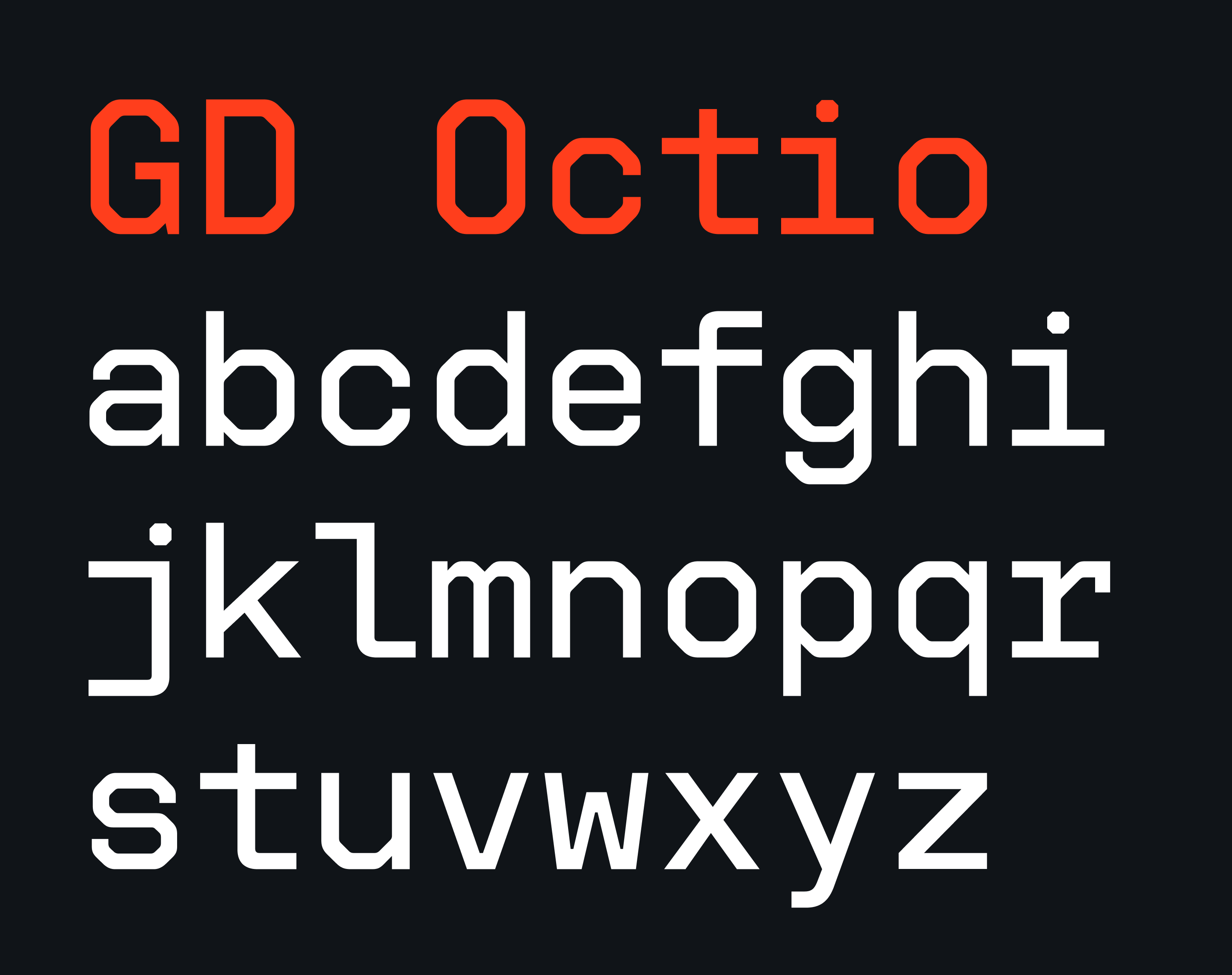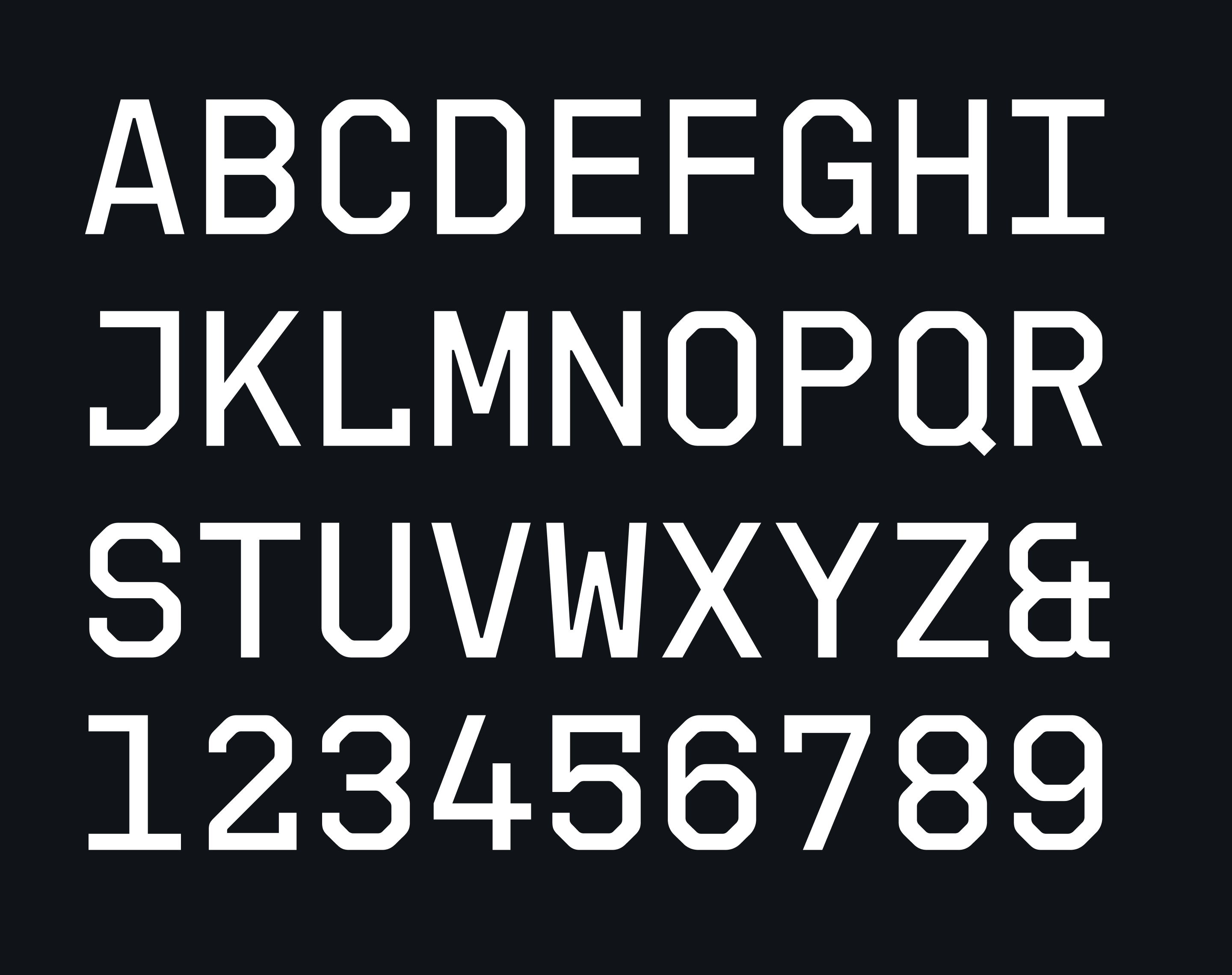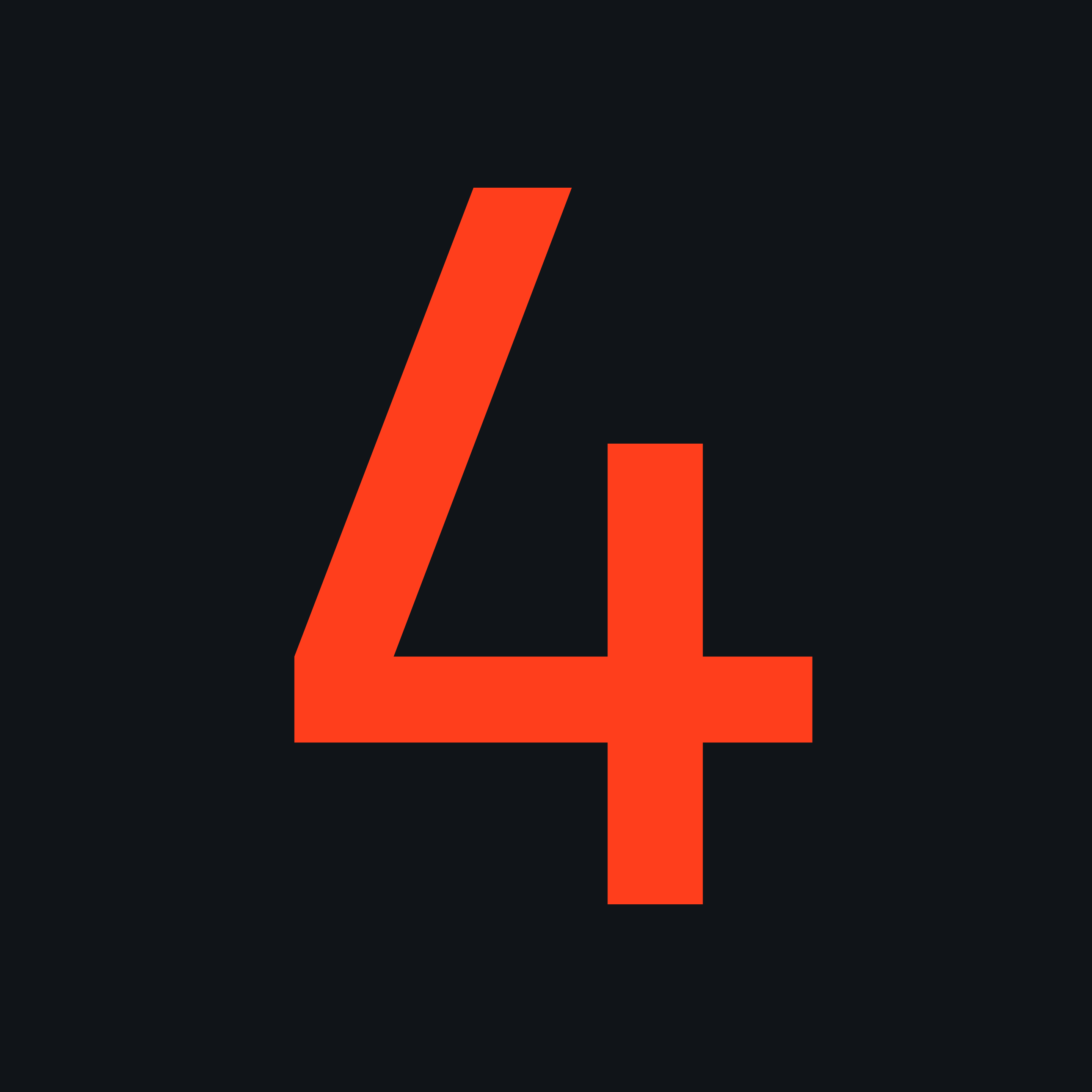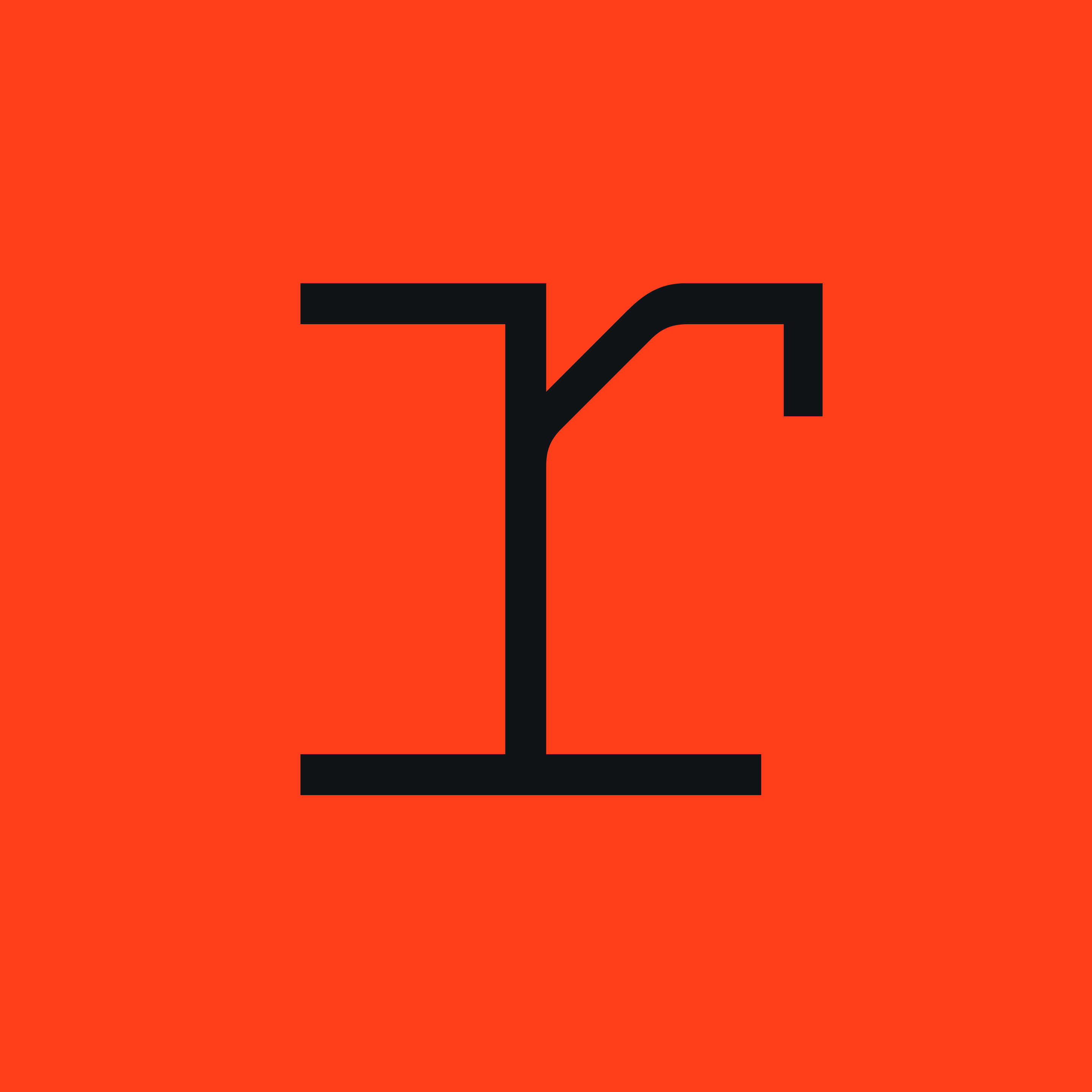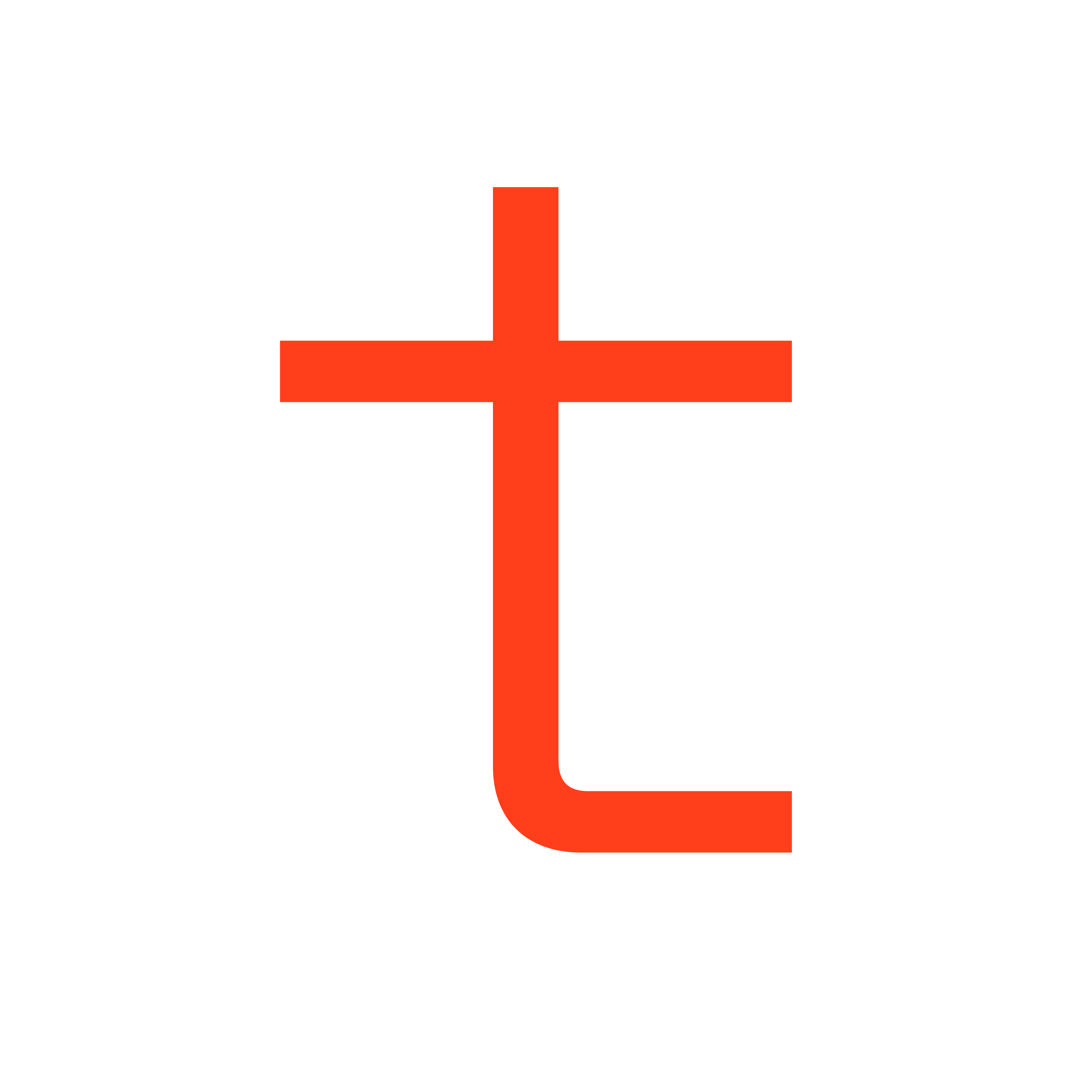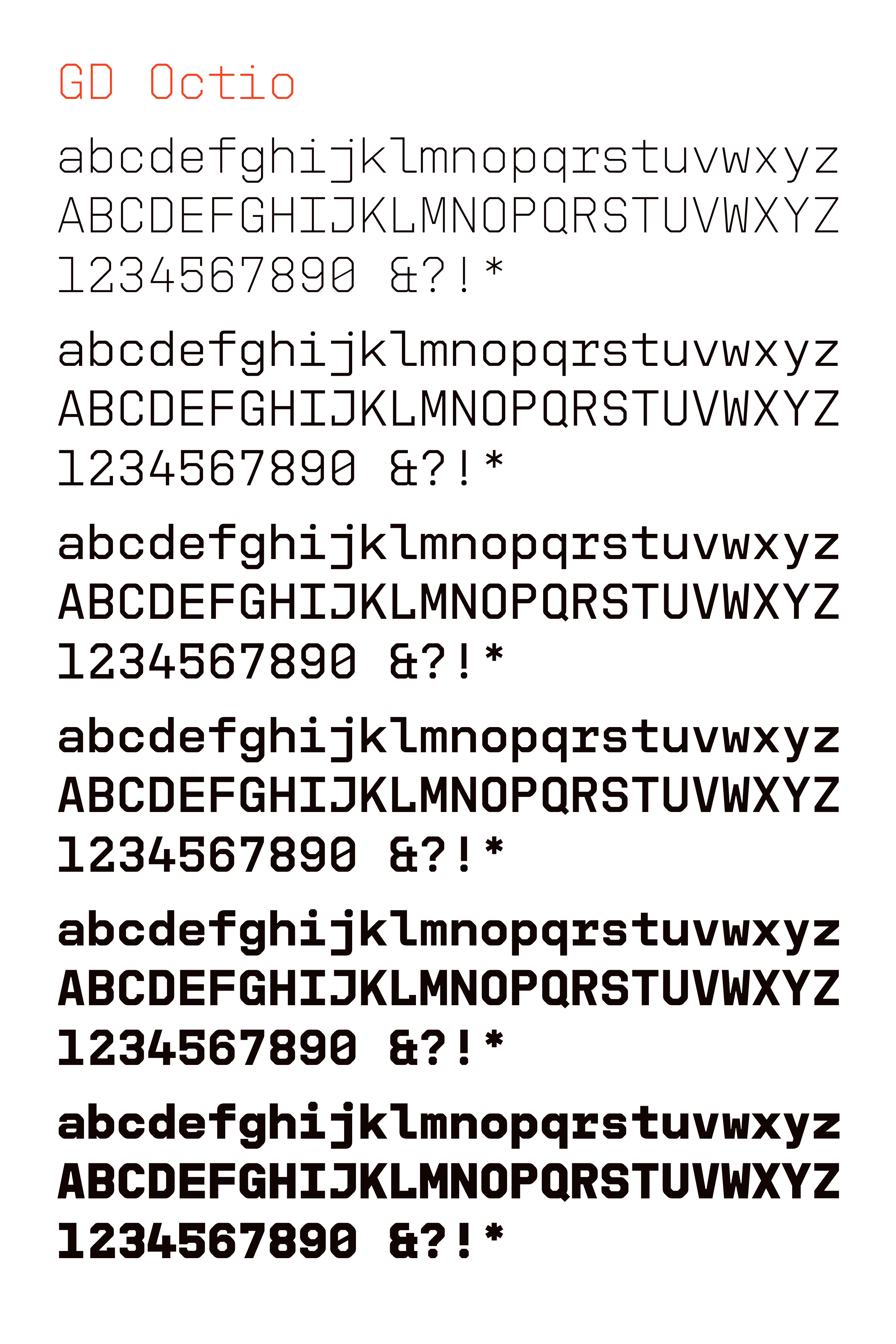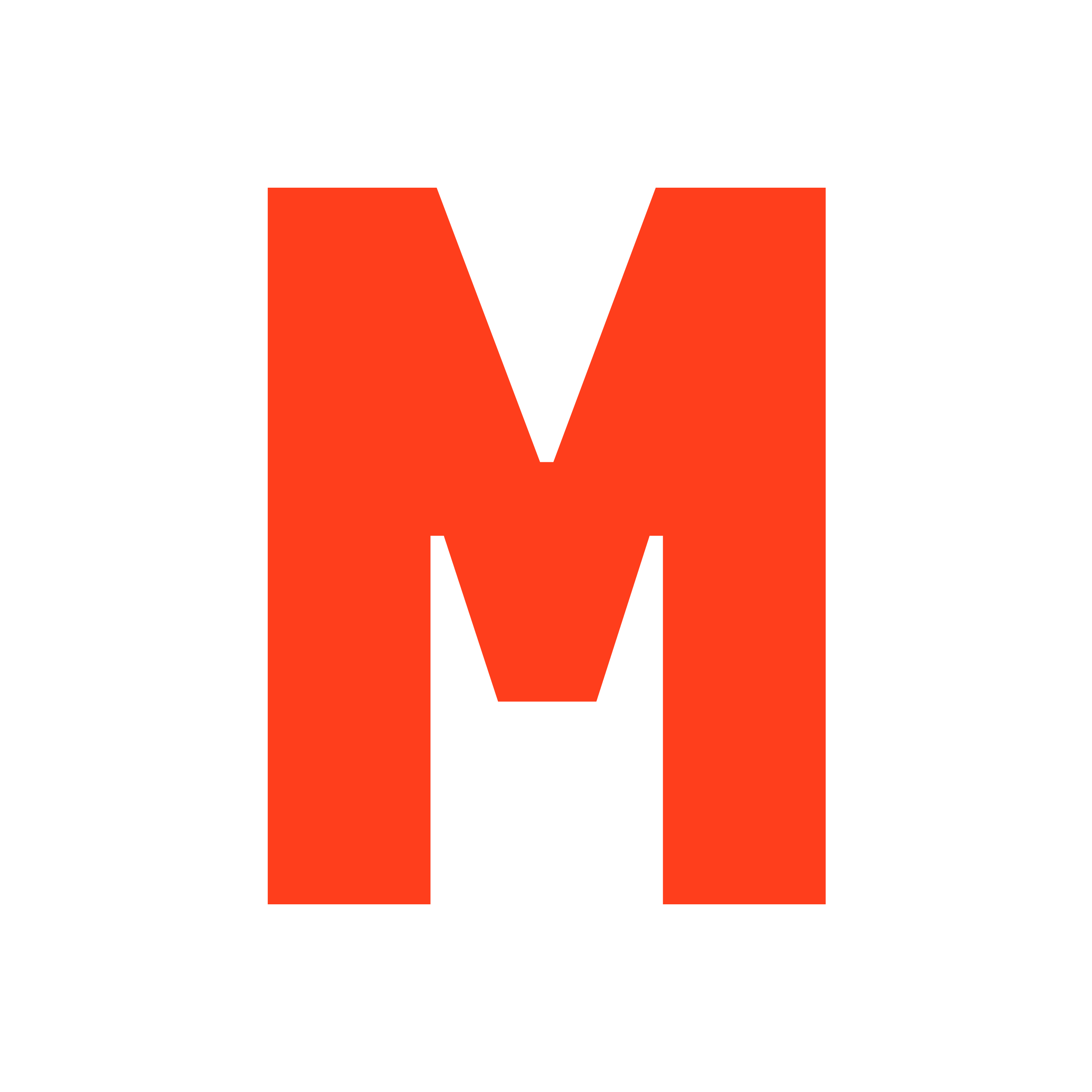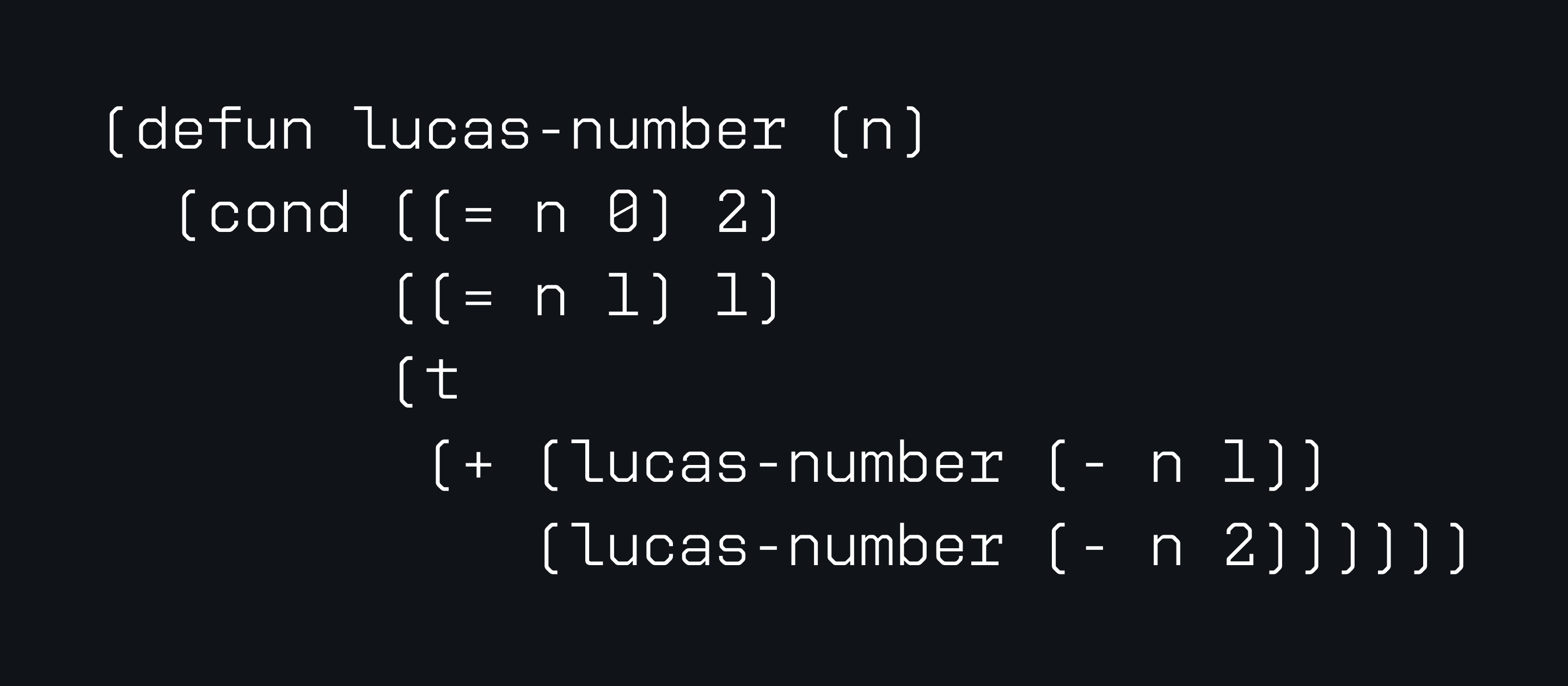
GD Octio
I always relish the challenge of designing monospace fonts. Making the naturally wide and narrow characters fit the same amount of horizontal space requires a type designer to carefully consider how to use that space so that the letters won't feel either cramped or stretched out.
One approach is to flatten the curves. A horizontal line doesn’t feel squished or extended in the way that a curve would.
This is what we did in GD Octio. And then we went one step further and flattened the corners into straight 45° lines. So the shape of an ‘o’ becomes octagonal — hence the name.
This has another benefit when rendering the font on screen: the hinting algorithms love this simple octagonal shape, because it’s so easy to fit on a pixel grid. So you get crisp and clear rendering even in small sizes on screen.
The octagonal shapes lend GD Octio a rather techy appearance, reminiscent of some classic monospace fonts like OCR A, which served as a reference point during our design process. Such fonts are often designed with an engineer’s mindset, and that’s what give them their particular flavor as well as their flaws. With GD Octio, I strived to bring out that character while also paying attention to balance and rhythm. In other words, to marry an engineer’s mindset with a designer’s eye.